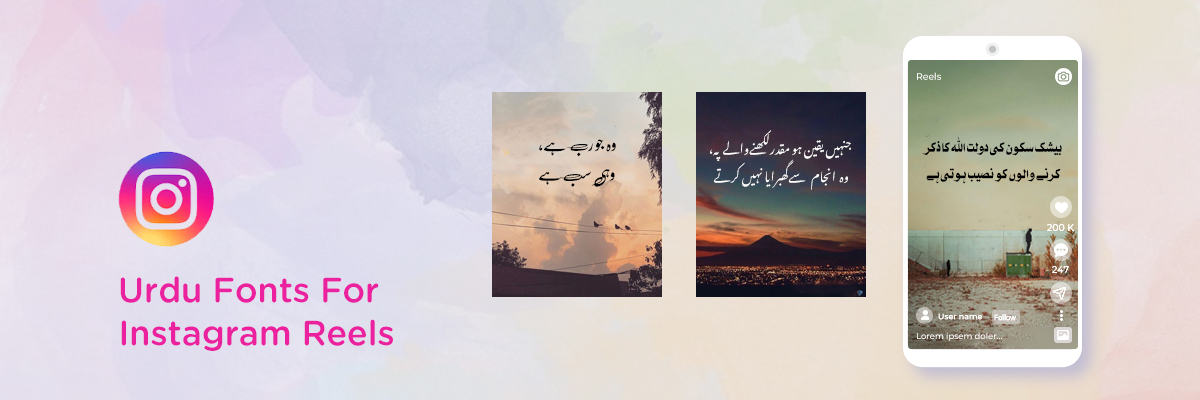
In today’s digital world, visual storytelling is the real game changer; the right font can elevate your content from good to great. A font that aligns perfectly with your pitch proves more helpful in delivering the message accurately while captivating the target audience. Urdu is an elegant language that maintains its grace, either spoken or written. To visually represent it, we have hundreds of Urdu fonts that cater to various design needs, from books and newspapers to logos, branding, and even appealing social media content. So, if you want to make engaging content that instantly grab viewer’s attention, all you need is a perfect Urdu font for Instagram!
However, with so many fonts available, choosing the one that complements your style and message can be overwhelming. But worry not! This guide dives into the top 8 Urdu fonts specifically tailored for Instagram Reels. Here, we’ll explore the unique characteristics of each font, helping you select the perfect match to grab attention and convey your message effectively. Whether you prefer bold and playful or elegant and refined styles, we are here to provide a solution that is practical and visually pleasing. So, are you ready to take your Instagram Reels and social content to the next level? Also, learn more about the role Urdu Fonts in Marketing and advertising campaigns for the local audience.
Here, we have carefully curated the list of 8 best Urdu fonts for your various needs. Whether you need an impactful bold font for your branding or some lighthearted handwritten or cartoon-style fonts for making playful content, you have it all!
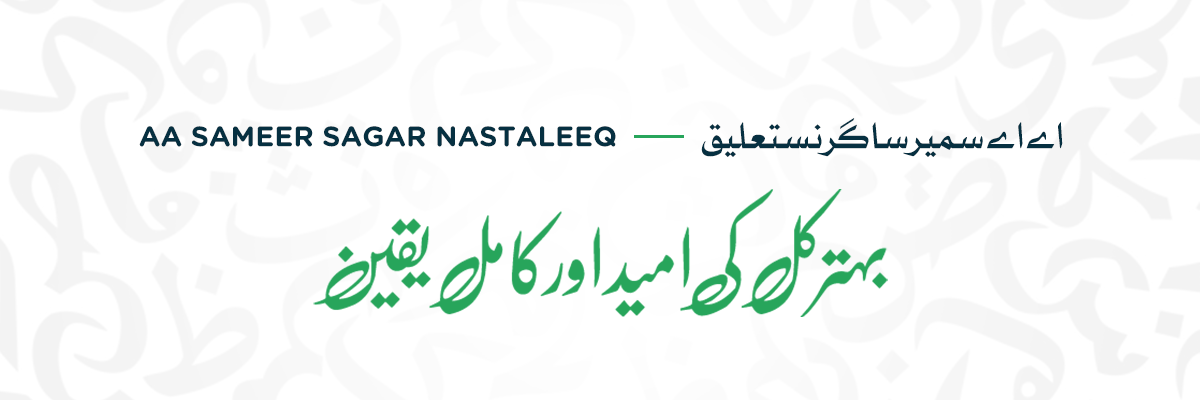
AA Sameer Sagar Nastaleeq is a slanted bold and decorative Urdu font Inspired by the Nastaliq script. With its beautifully designed striking letters, the font boasts elegance and grace to give your reels a convincing and sophisticated tone. This calligraphy typeface is known as one of the best Urdu fonts for Instagram reels if you want to add elegance. Its changing thickness and contrasting yet strong strokes, like those made by a Qalam, add depth to its calligraphic appearance. Its beautifully curved edges and long, flowing lines lend an elegance, perfect for captivating audiences with inspirational quotes, cultural content, or even traditional poetry. So, make interactive reels with song lyrics or advertise your product or brand; AA Sameer Sagar Nastaleeq answers every call you make.
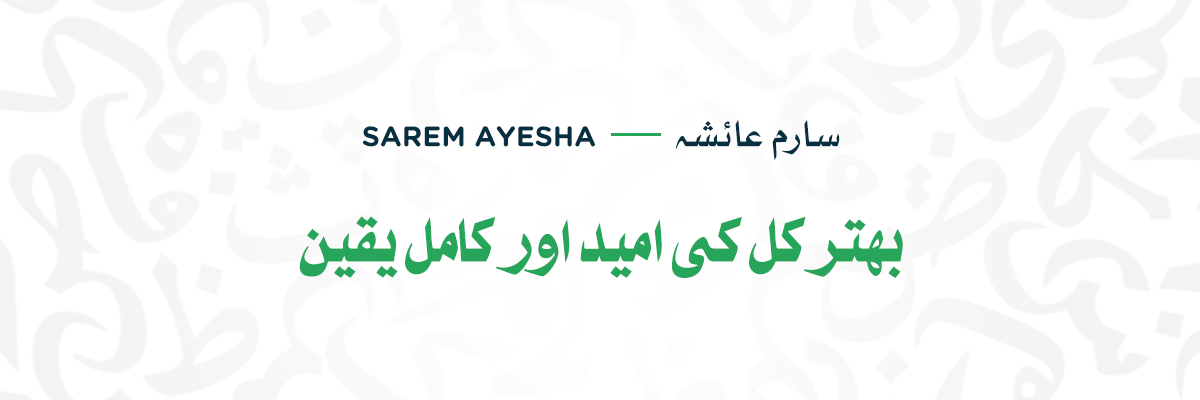
Need to grab attention and make a lasting impression? Sarem Ayesha, with its bold and impactful nature, is your perfect solution. This thick and striking font offers a strong presence, making short text pop on your Reels. It is ideal for promoting events, announcements, or delivering a clear message that demands notice. This font’s bold appearance shows professionalism and confidence, making it ideal for creating a trustworthy and credible brand presence on Instagram. It helps you establish a strong identity that connects with your audience, showcasing your brand with authority and impact.
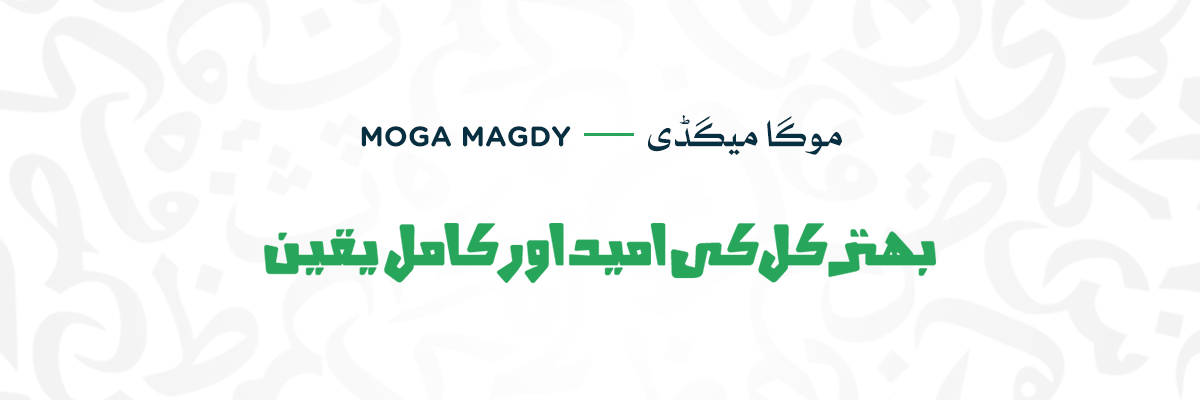
Looking for a font to promote children’s products or try to create funny memes and reels? Moga Magdy serves well and considered as one of the Urdu fonts for Intagram fun reels. Designed by Magdy Soliman, the font pours fun into your reels with its playful strokes and cartoon-like, bubbly appearance. With its bold and attention-grabbing lines, this font is perfect for creating playful and lighthearted Instagram Reels. Whether you’re promoting children’s products, sharing funny moments, or making cheerful announcements, this font adds personality to your message. It definitely leaves a lasting impression and keeps your audience engaged throughout your Reels. Moreover, read more on the Importance of Font Selection.
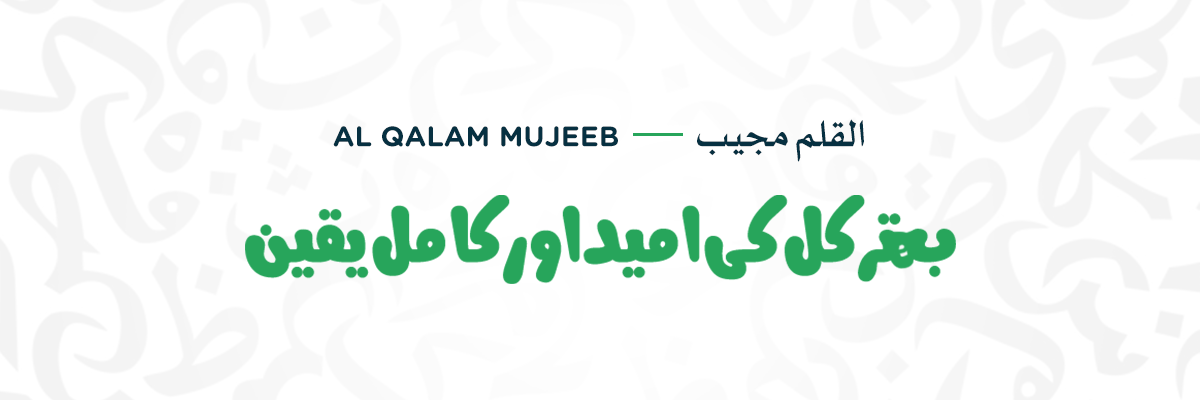
Al Qalam Mujeeb is a unique cartoon-style and a fun choice for Urdu fonts for Instagram that brings a fun and bubbly energy to your text. Its round, playful letters evoke a nostalgic 1950s vibe, perfect for adding fun to your Instagram Reels. Whether creating content for kids or spreading good vibes, this font is fun and engaging. It not only helps build connections with your audience but it makes your content feel lively and friendly. By using this font, you can create Reels that stand out, make people smile, and encourage interaction. Say goodbye to boring fonts and embrace the bubbly charm of Al Qalam Mujeeb for content that keeps your audience coming back for more.
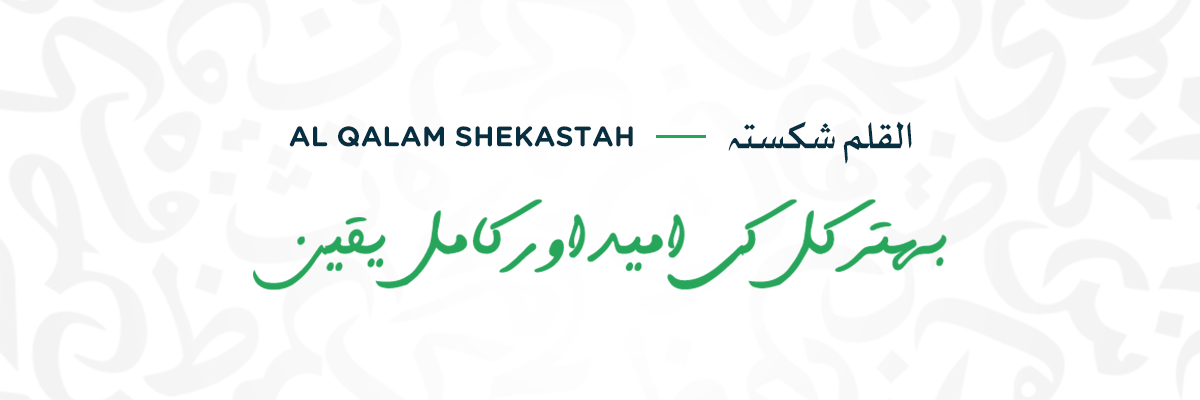
Al Qalam Shekastah another one of the top choices for Urdu fonts for Instagram, adds a touch of class to your Reels with its flowing, handwritten style. Imagine your poetry or quotes looking like they were penned by a calligrapher! This font is perfect for visually displaying your Urdu verses with a beautiful, natural writing touch. You can also use it to design captivating poetry reels that represent the elegance of Urdu prose with a natural handwriting font. Add a touch of timeless beauty to your Reels with Al Qalam Shekastah. It’s an easy way to connect with your audience on a personal level by giving your message a more real feel. Also, check our collection of 25 creative Canva Urdu Fonts.
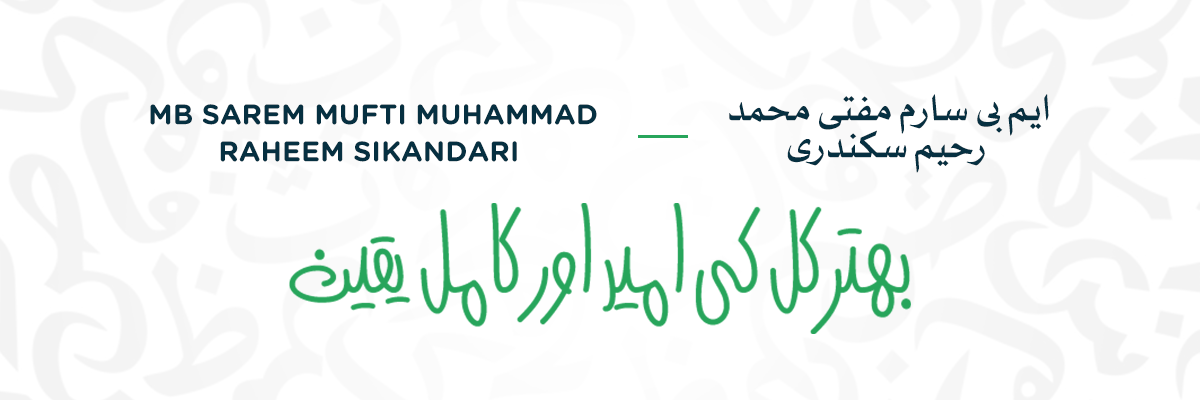
MB Sarem Mufti Muhammad Raheem Sikandari, a handwritten Sindhi font, offers warmth and personality to your Instagram Reels. It creates a sense of authenticity that resonates with viewers. This font beautifully mimics natural handwriting, adding a personal touch that makes your content feel handmade! It’s perfect for expressing your beautiful stories and heartfelt poetry with a unique font that gives a natural feel to your boring text. MB Sarem Mufti Muhammad Raheem Sikandari is more than just a font; it’s a way to express your unique voice and personality. Let your creativity flow freely and craft Reels that resonate with audiences on a deeper level.
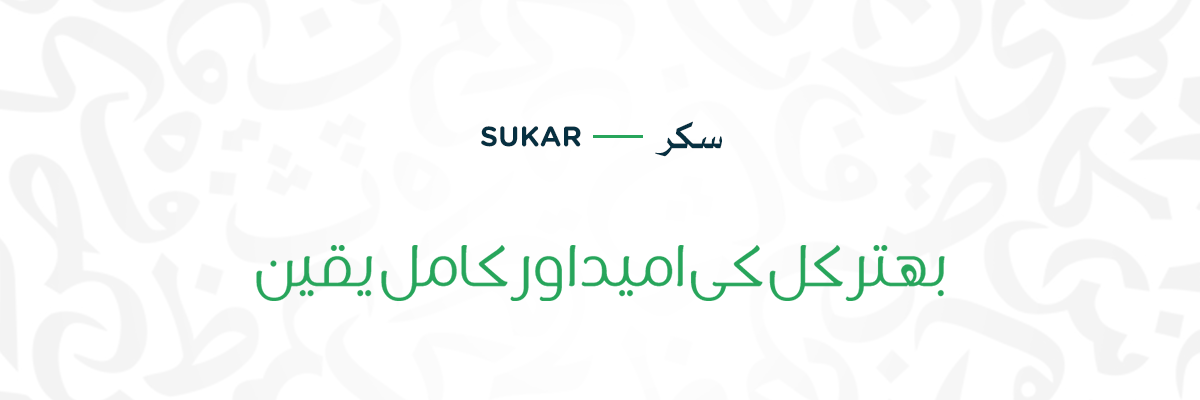
Do you want to make your Instagram Reels pop with a modern vibe? Ditch the casual fonts and go with this rounded and diverse font. The font keeps your content easy to read and understandable despite having a rounded letter. Plus, it comes in three different weights, so you can increase the intensity of your message or keep it regular and smooth, whatever your Reel needs. The best part is that it helps creators form a fresh and polished visual identity, capturing attention and keeping viewers engaged. Sukar is simple yet stylish enough to keep your Reels looking visually appealing and interactive.
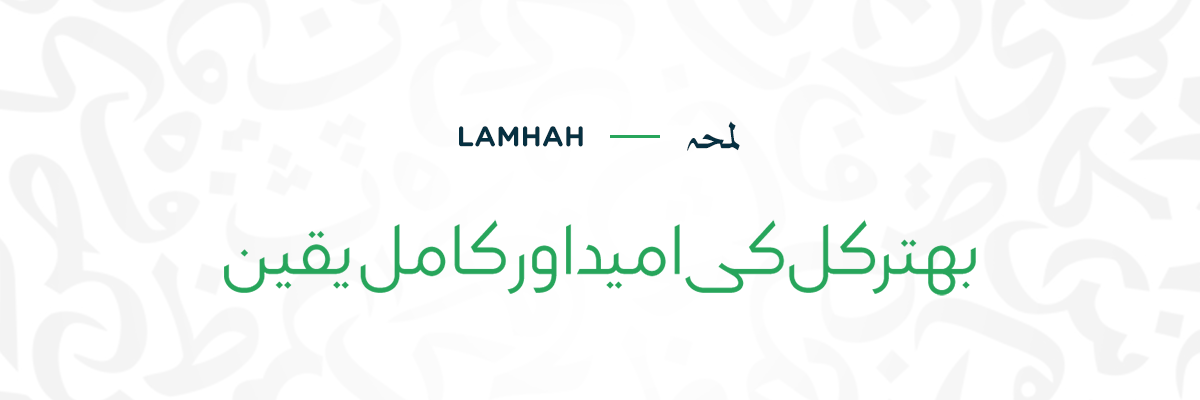
If you want your reels to rise above the ordinary, Lamhah is your answer. These smooth, rounded letters offer timeless elegance with a modern twist. It’s perfect for both professional branding and playful announcements and keeps the text classy while adding a lighthearted touch. No matter your Reel’s vibe, Lamhah elevates it effortlessly, making your message captivating, loud, and clear. With the welcoming feel this font offers, you can create Reels that truly connect with your audience. So, ditch the boring fonts and go with the Lamhah. Also, it comes in different weights; you can experiment with these to make visually engaging content. Find out more like this in our hand-picked collection of Sleek Urdu Fonts, perfect for your modern design needs.